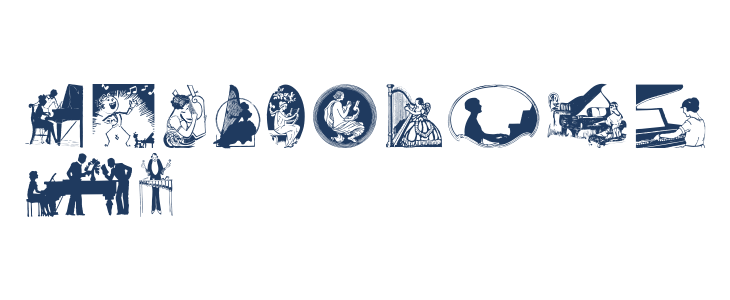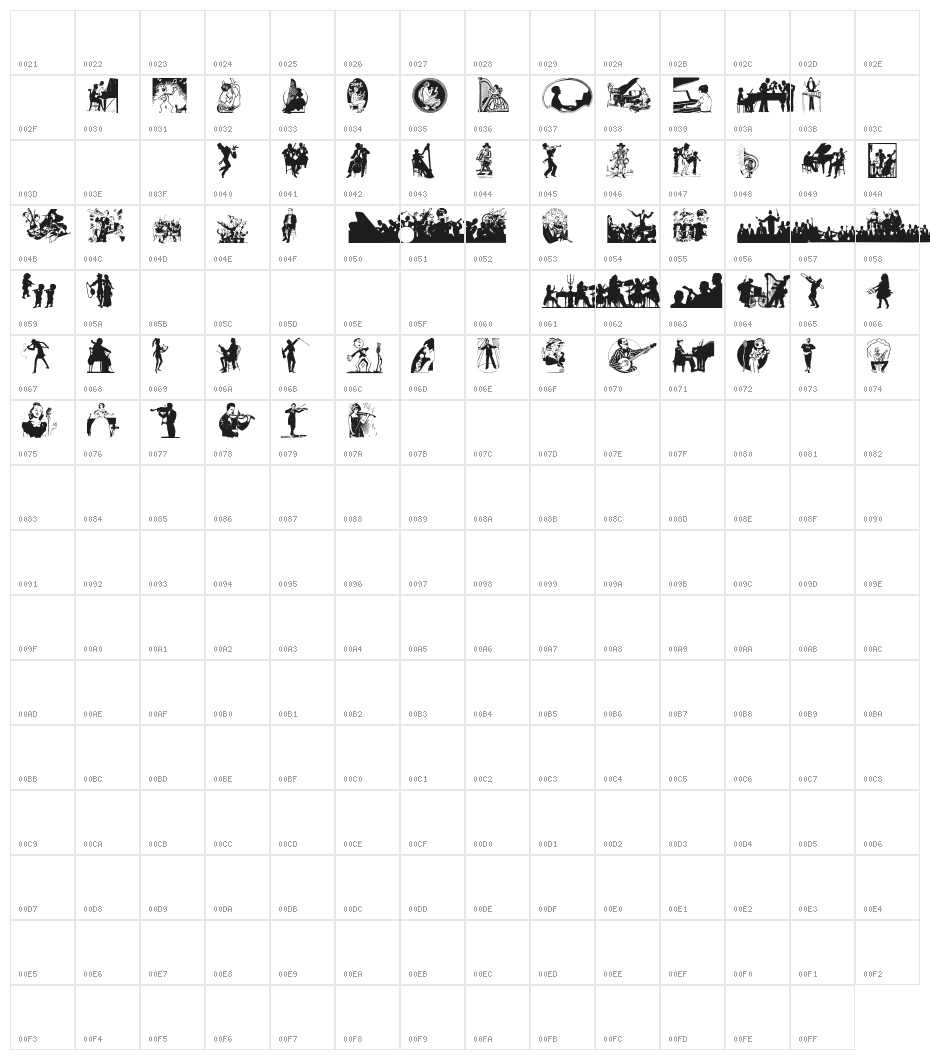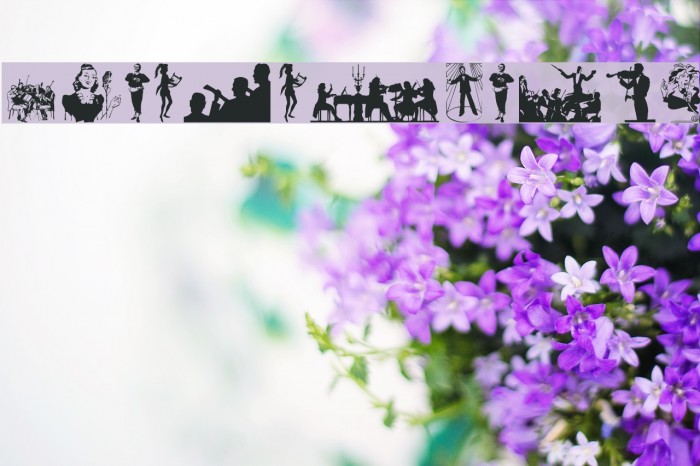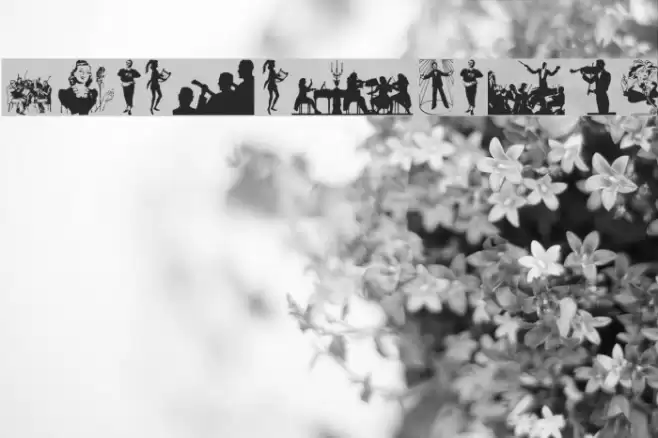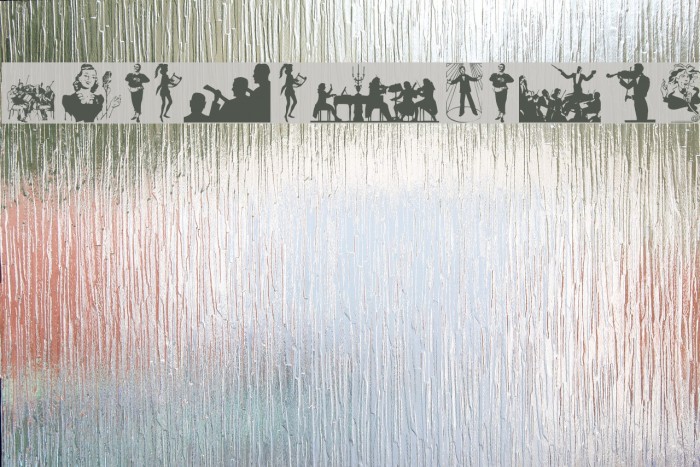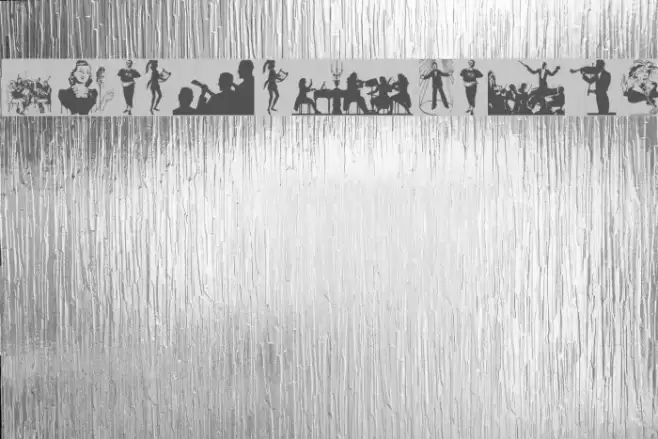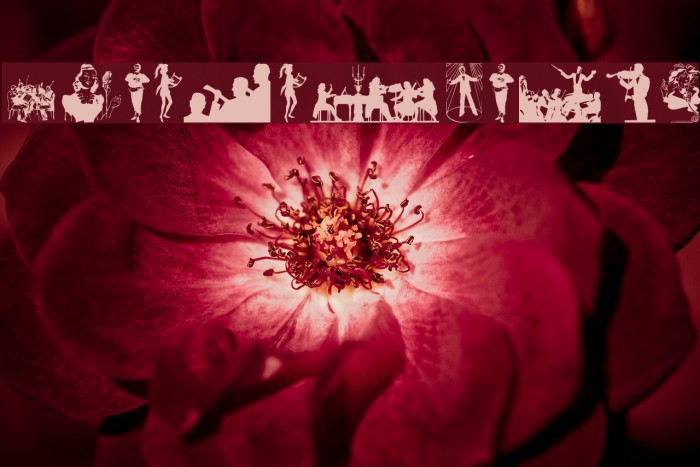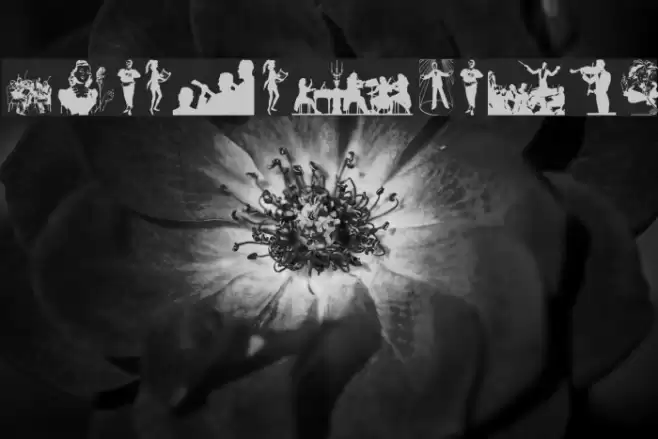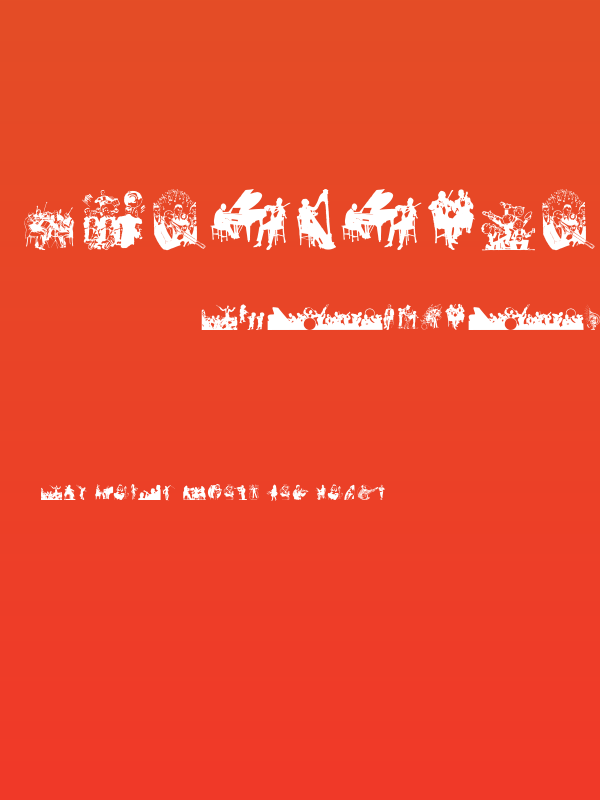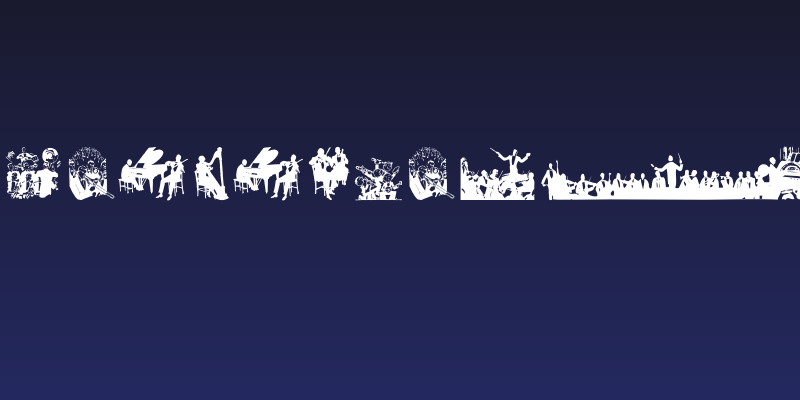
MusiciansTwo Font
A decorative collection of silhouette-style illustrations featuring musicians, bands, and musical performances. Each character or group is depicted in a playful, vintage cartoon style, emphasizing musical instruments and expressive poses. The glyphs are highly detailed and function as pictorial icons rather than traditional letterforms.
Overall StyleVintage, Decorative
Use CaseLogos, Headlines, Themed graphics, Posters
Proposed ProjectsEvent posters, music festival branding, educational materials, themed invitations, album art, decorative headings.